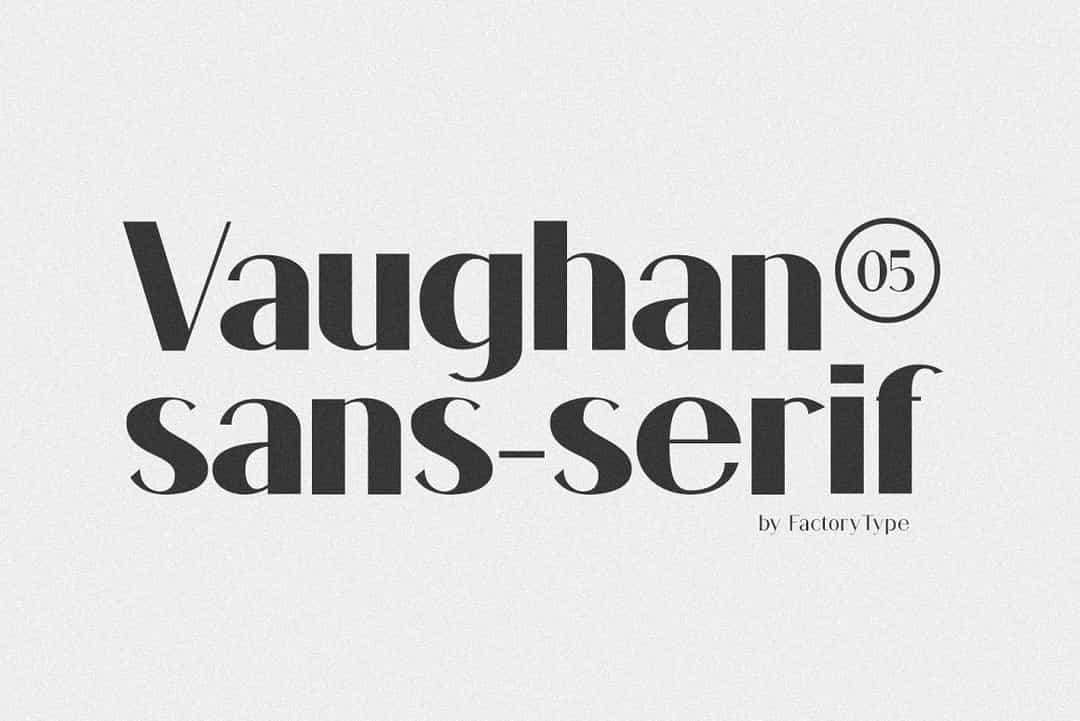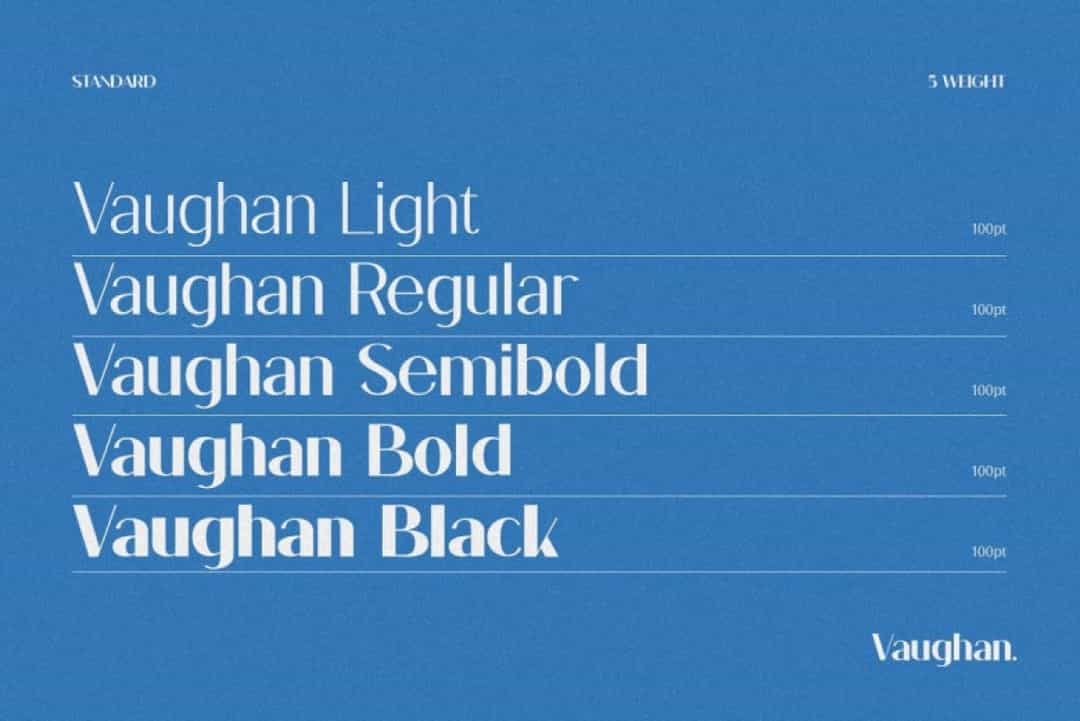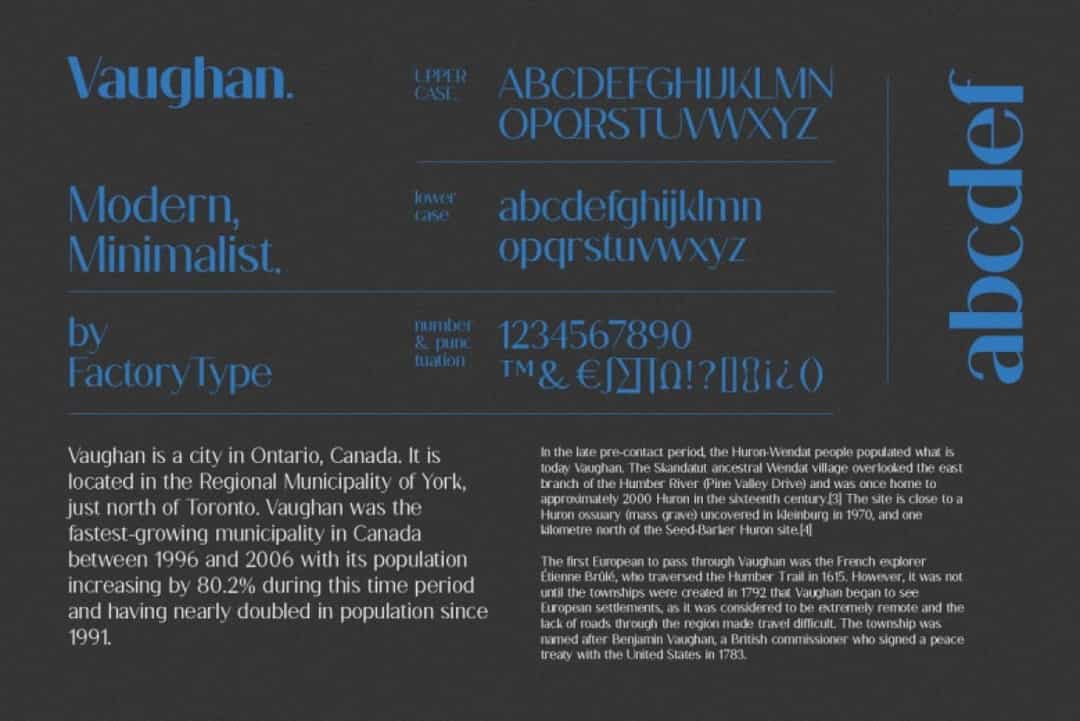
Vaughan is an elegant and minimal sans serif typeface family, available in different weights to give you plenty of options when selecting the ideal typographic shade for your work. Perfect for creating headlines, branding identities, logos, posters magazines etc.